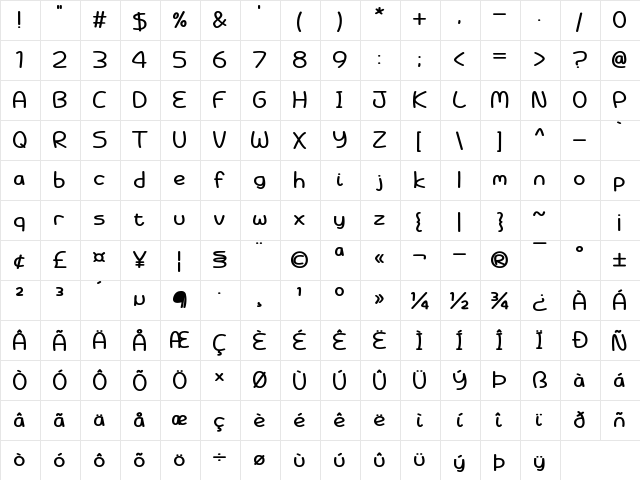
Battenberg and Custard Bold
Design Context for Battenberg and Custard Typeface
Battenberg and Custard is a composed and adaptable typeface that performs quietly and consistently across a wide range of design contexts. Its bold stroke weight gives it real presence on the page.
Pro Tip: Use Battenberg and Custard in both headline and body roles to test its range before committing to a single application.